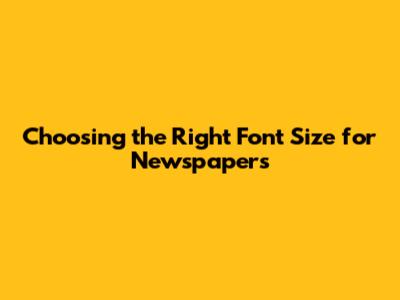
Choosing the right font size for newspapers is super important, guys! It’s all about making sure your readers can easily dive into the content without squinting or straining their eyes. Think of it as the key to a smooth and enjoyable reading experience. When you nail the font size, you’re not just throwing words on a page; you’re creating an accessible and engaging way for people to stay informed. So, let's break down what makes a font size perfect for newspapers!
Why Font Size Matters
Readability is King: First off, readability is the name of the game. If your font is too small, people will skip your articles. Nobody wants to struggle to read the news! A good font size ensures that each letter is clear and distinct, making it easy for readers to follow along. This is especially crucial for newspapers, where you're dealing with a lot of text in a compact space.
Eye Strain Prevention: Let's be real, staring at tiny fonts for a long time can give you a headache. Choosing an appropriate font size helps prevent eye strain, allowing readers to comfortably consume the news without feeling like they just ran a marathon. Happy eyes mean happy readers, and happy readers are more likely to stick around.
Accessibility: Making your newspaper accessible to everyone is vital. This includes people with visual impairments. A larger, clearer font size can make a world of difference for readers who might otherwise struggle with smaller text. It shows that you care about all your readers and want to make your content available to as many people as possible.
Professional Appearance: The font size also plays a role in the overall look and feel of your newspaper. A well-chosen font size contributes to a professional and polished appearance, making your publication look credible and trustworthy. It’s all about presenting your content in a way that commands respect and attention.
Standard Font Sizes for Newspapers
Okay, so what’s the magic number? While there’s no one-size-fits-all answer, there are some generally accepted standards in the newspaper industry.
Body Text: For the main body of the text, a font size between 9 and 12 points is usually recommended. A 10-point font is often considered the sweet spot, balancing readability with space efficiency. This size allows you to fit a good amount of text on the page without sacrificing clarity.
Headlines: Headlines need to grab attention, but they also need to be readable. Headline font sizes can vary widely depending on the importance and placement of the article. Generally, headline fonts range from 14 points for smaller headlines to 36 points or larger for main headlines on the front page. The key is to create a clear hierarchy that guides the reader through the newspaper.
Subheadings: Subheadings help break up the text and make it easier to scan. A font size slightly larger than the body text, such as 12 or 14 points, works well. This helps them stand out without overpowering the body text.
Captions: Captions usually accompany images and need to be smaller than the body text but still readable. A font size between 7 and 9 points is typically used for captions. The goal is to provide context without distracting from the image or the main article.
Factors Affecting Font Size Choice
Choosing the right font size isn’t just about picking a number; it involves considering several factors that can impact readability and overall design.
Target Audience: Who are you writing for? If your target audience includes a significant number of older adults, you might want to lean towards larger font sizes to accommodate their vision. Knowing your audience helps you tailor your font choices to their needs.
Typeface: The specific font you choose also matters. Some fonts are naturally more readable at smaller sizes than others. For example, a clean, sans-serif font might be more readable at 9 points than a more decorative serif font. Experiment with different typefaces to see what works best for your content.
Column Width: The width of your columns can also influence the ideal font size. Narrower columns may require a smaller font size to avoid awkward line breaks and hyphenation. Wider columns, on the other hand, can handle a slightly larger font size without compromising readability.
Paper Quality: The type of paper you’re printing on can affect how the font appears. Newsprint, which is commonly used for newspapers, tends to absorb ink, which can make the text appear slightly blurry. In this case, a slightly larger or bolder font might be necessary to ensure clarity. High-quality paper, on the other hand, may allow for smaller, more detailed fonts.
Tips for Optimizing Font Size
Alright, let's get into some practical tips for making sure your font size is on point.
Test, Test, Test: Never assume that what looks good on your computer screen will look just as good in print. Always print out samples and test them with real readers. Get feedback on readability and make adjustments as needed. This step is crucial for avoiding costly mistakes.